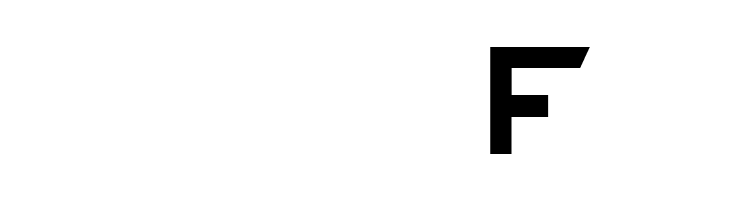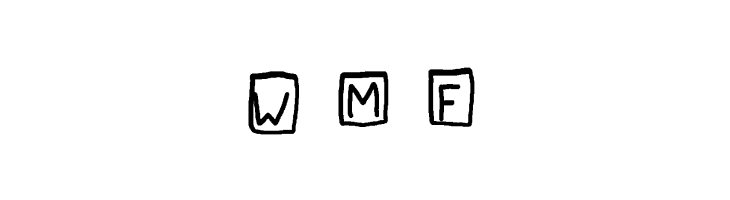
mannabox Font
A playful, hand-drawn font with characters in irregular boxes.
mannatypo Font
A playful, casual handwritten font with uneven strokes and a whimsical appearance.
mannaulu Font
A dynamic script font with a strong slant and bold, angular characters.
TITANFALL FRONTLINE Font
A bold, futuristic font with sharp angles and geometric shapes.